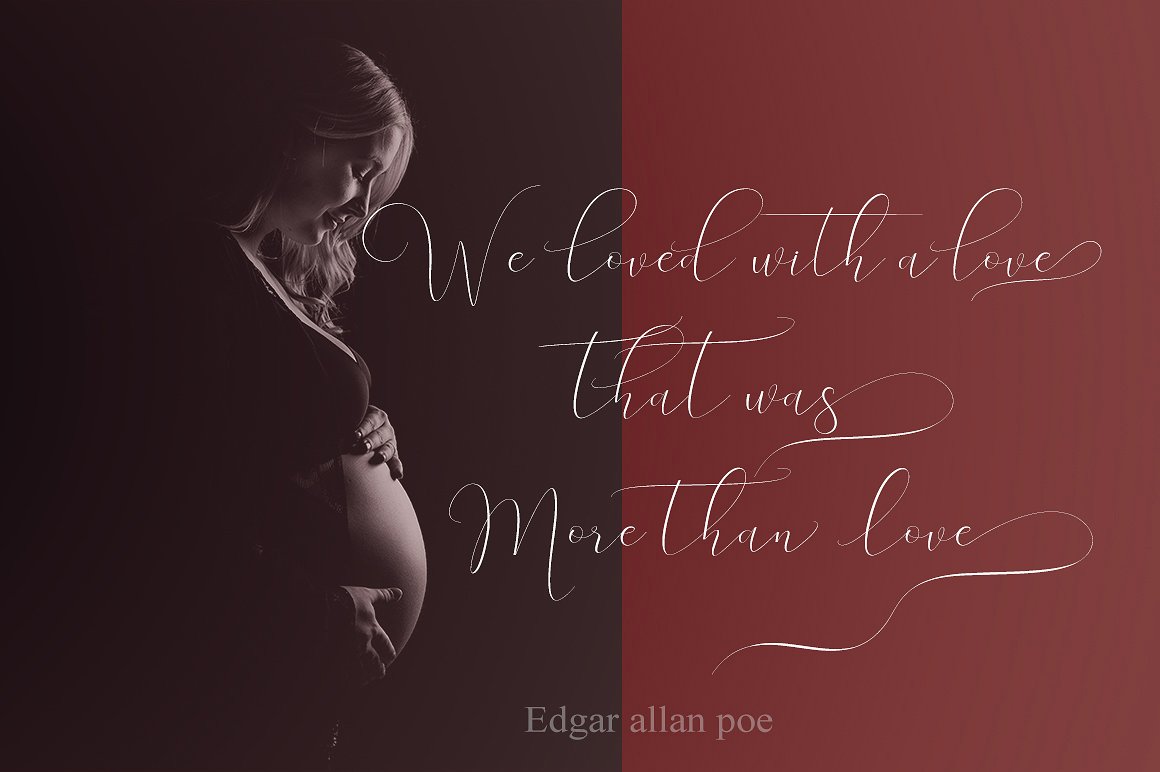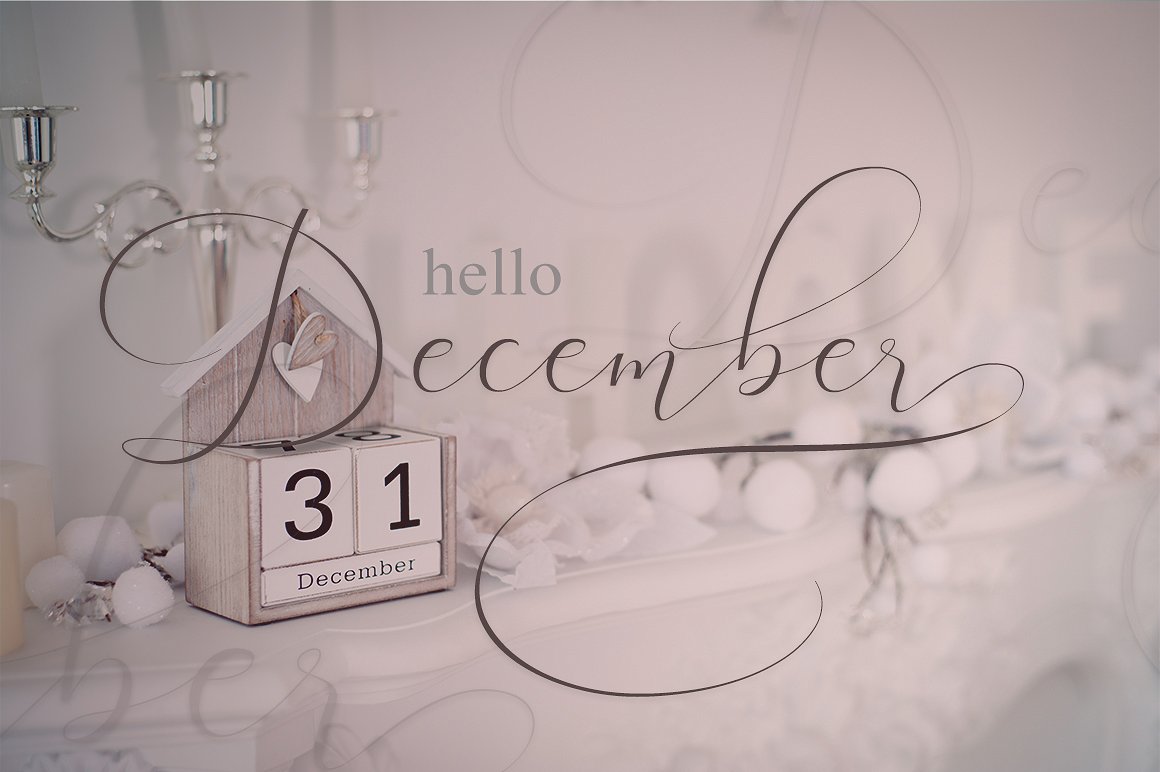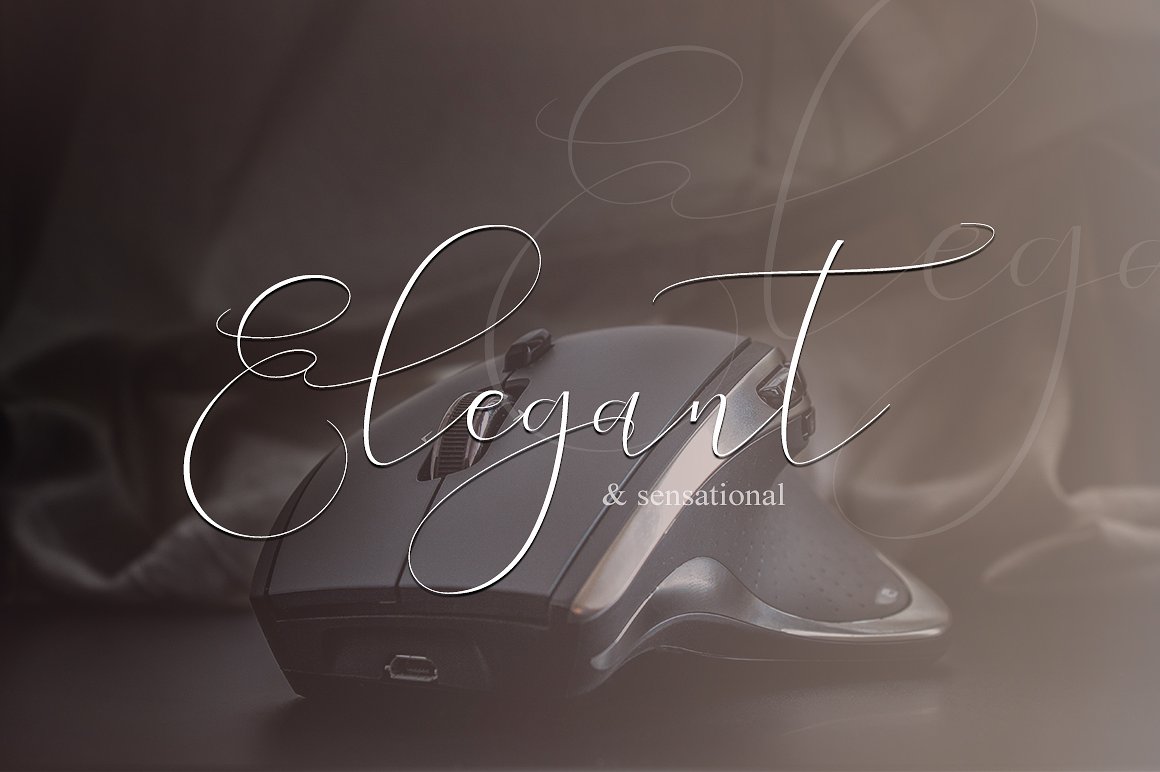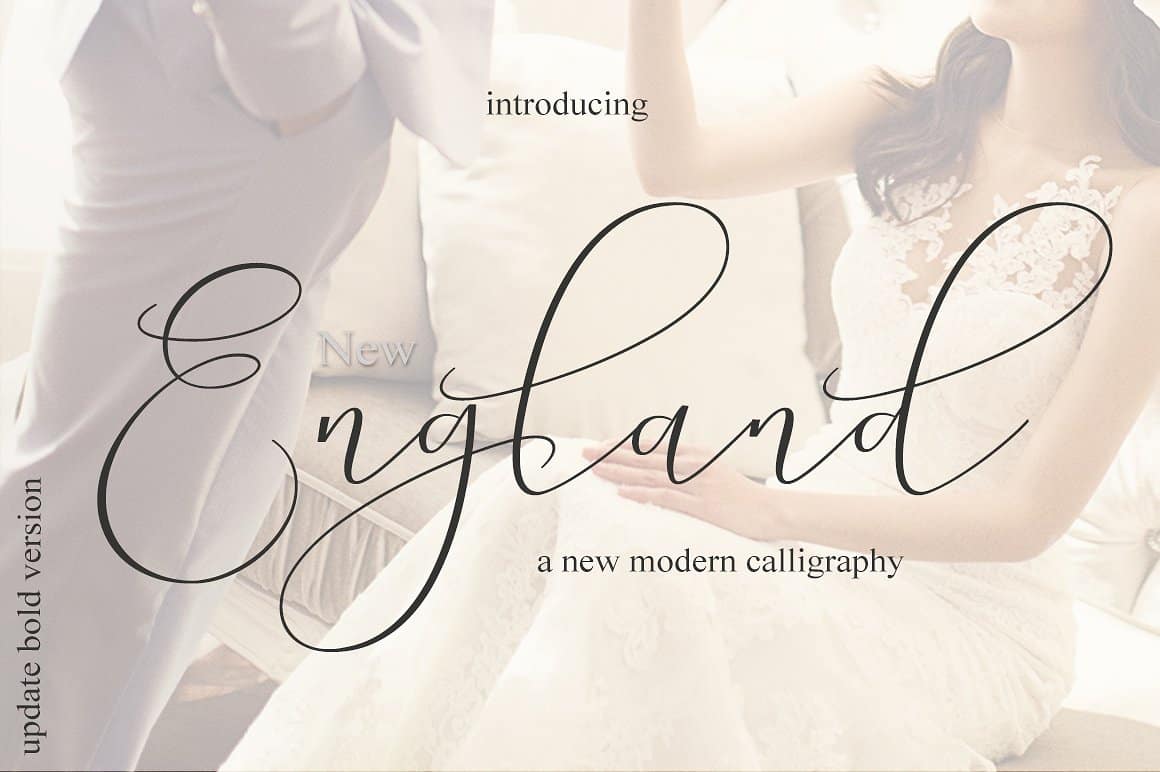
New England Script Font
England – a modern calligraphy typeface. It is designed and shared by MrLetters. New England is a modern calligraphy font with the current handwriting style, the soft font character looks calm with the handwriting based makes this font suitable for design with signature series style, logo photography, wedding theme, beauty products, classic letters and so on, this font also looks good applied in the style of neon lights, with colorful effects.